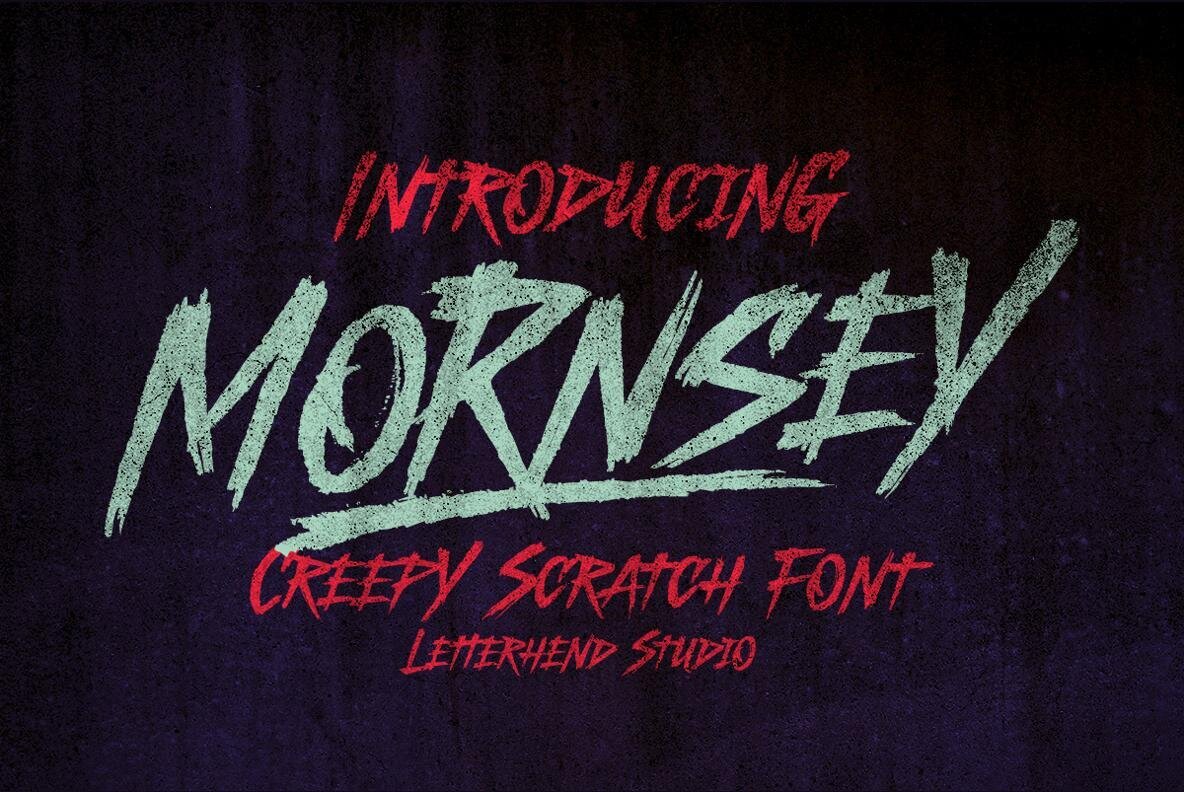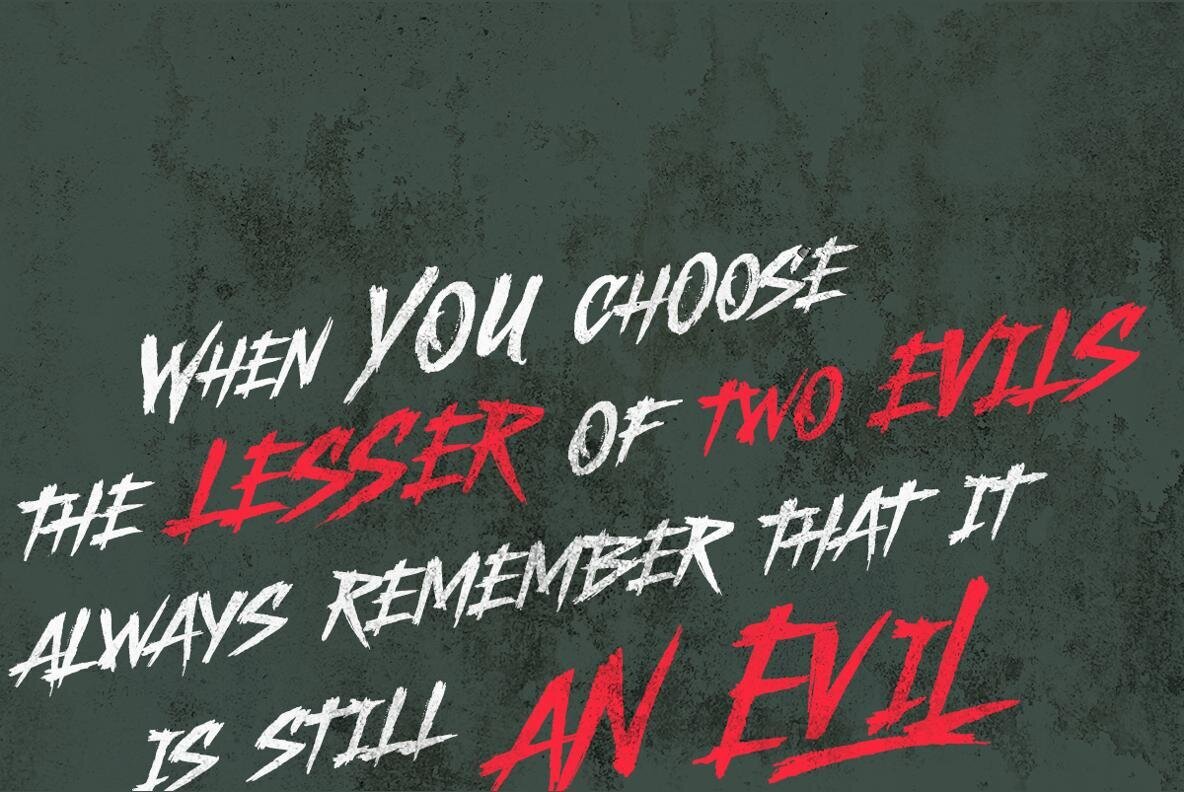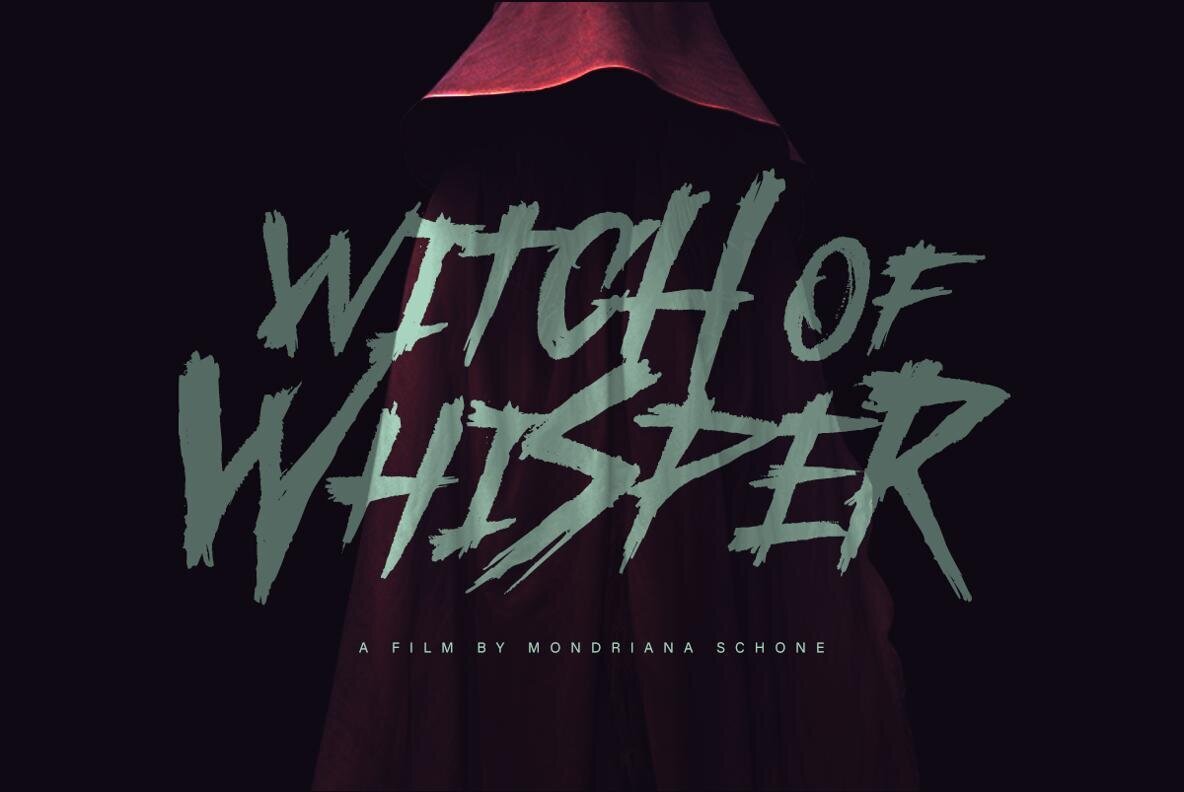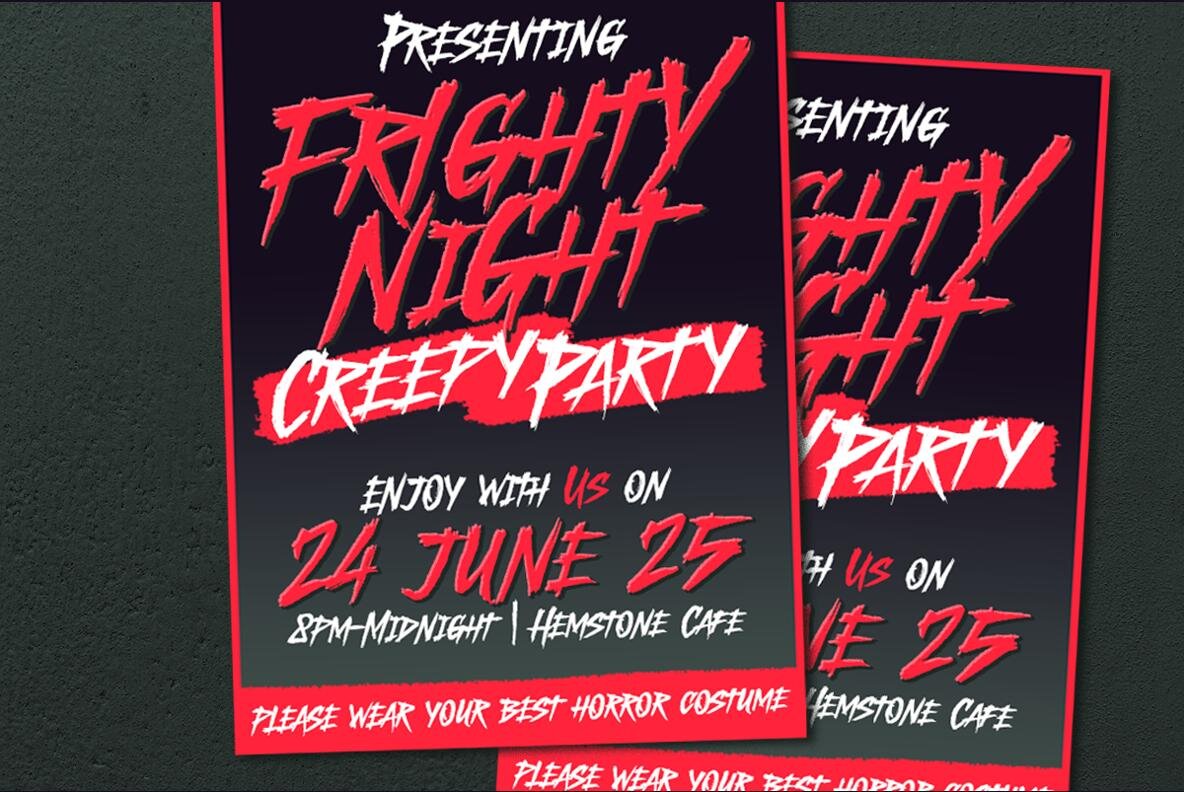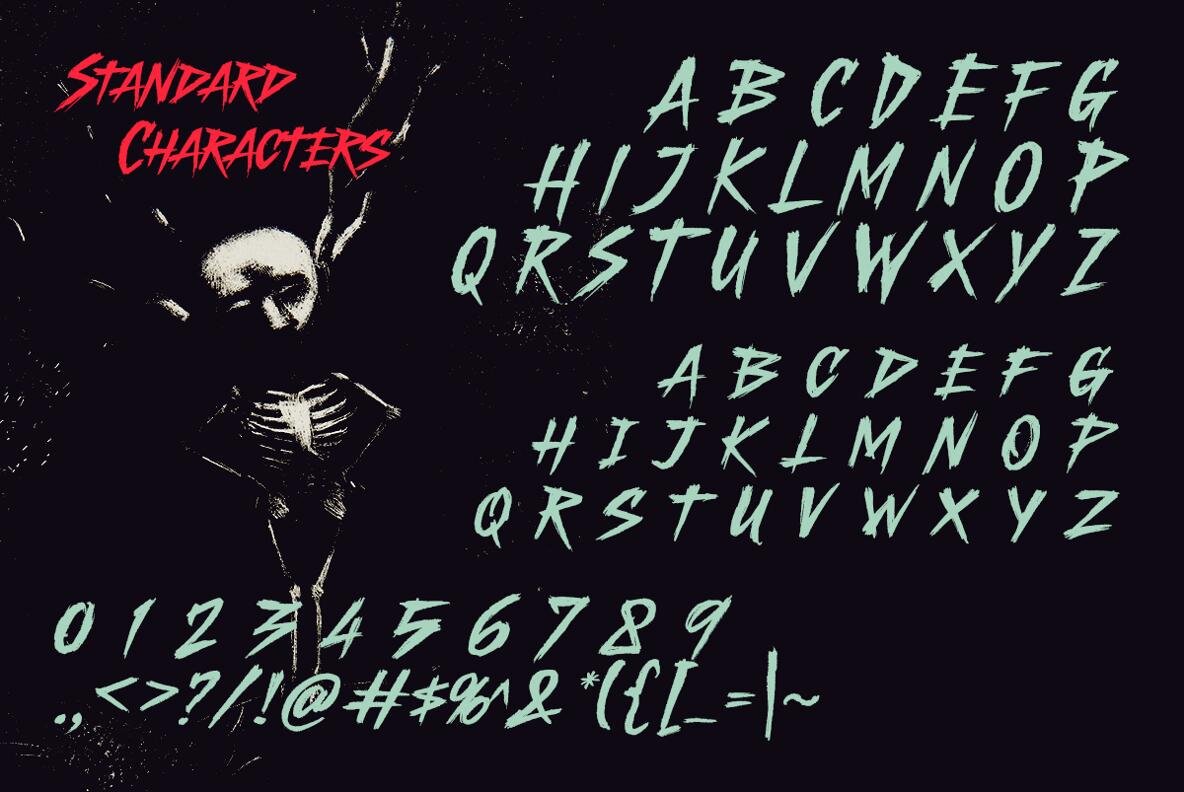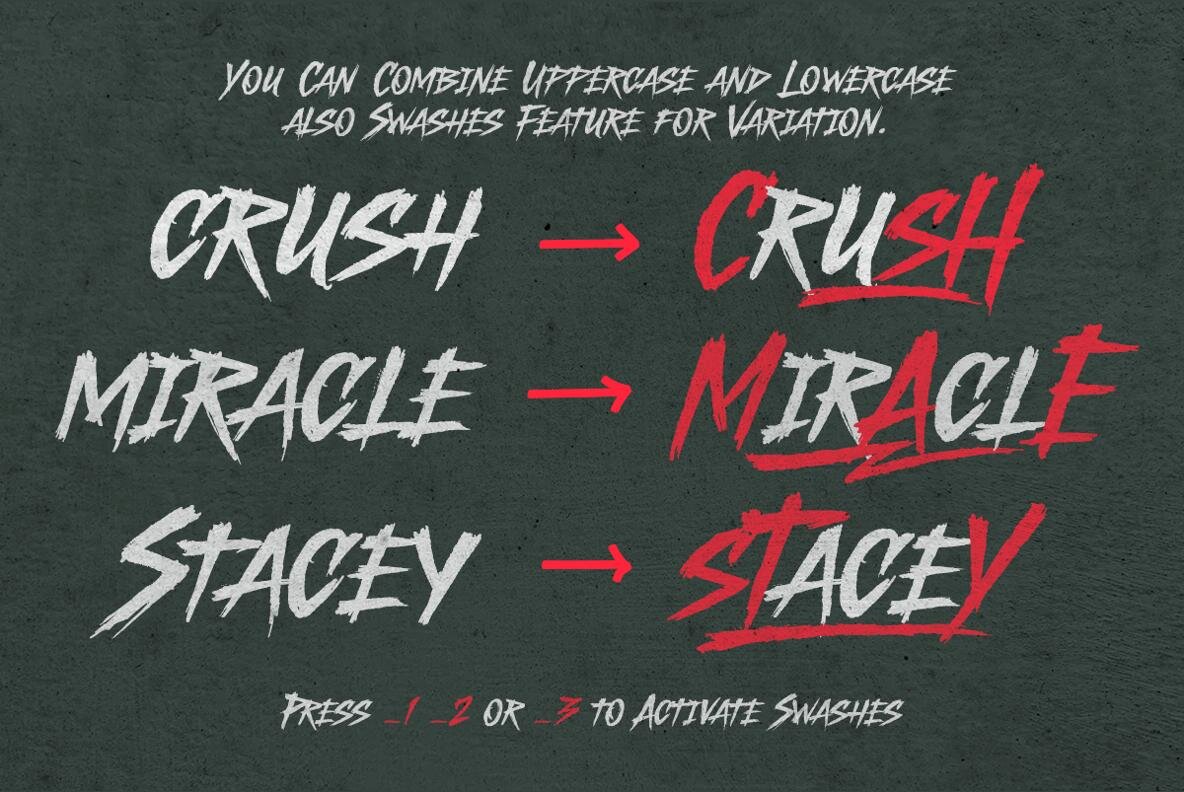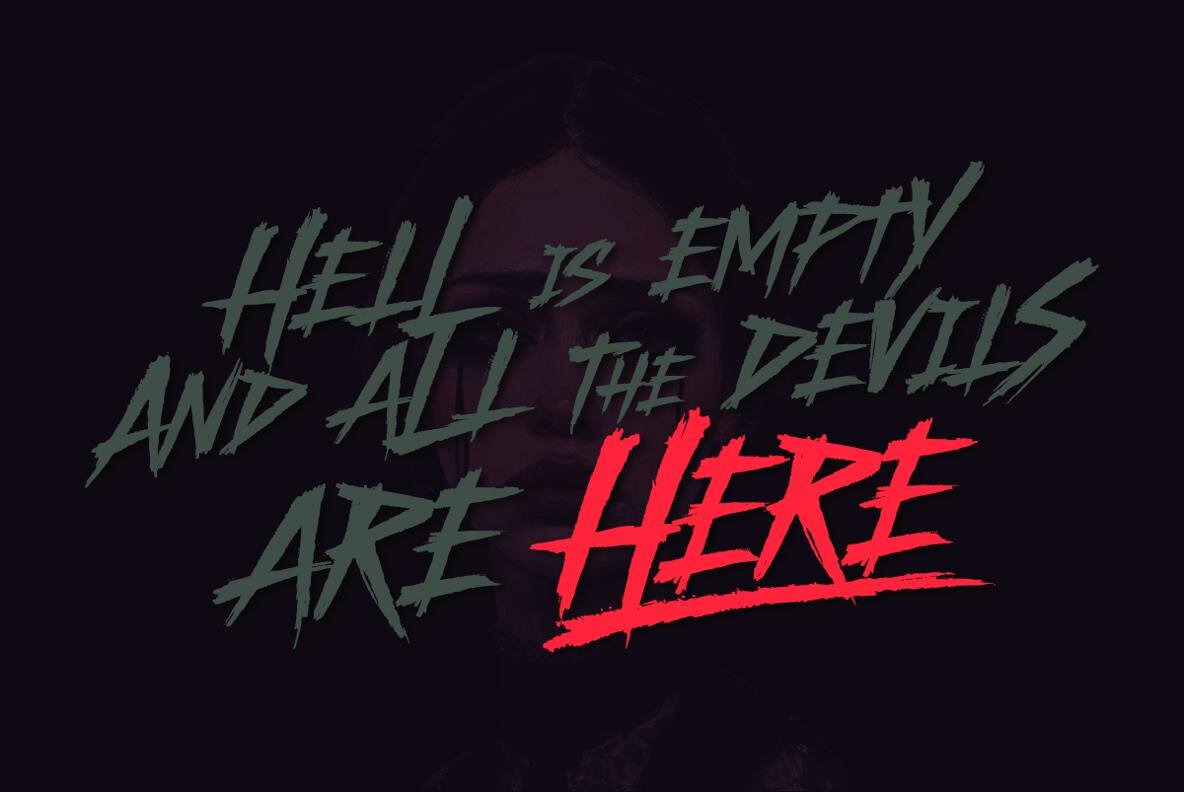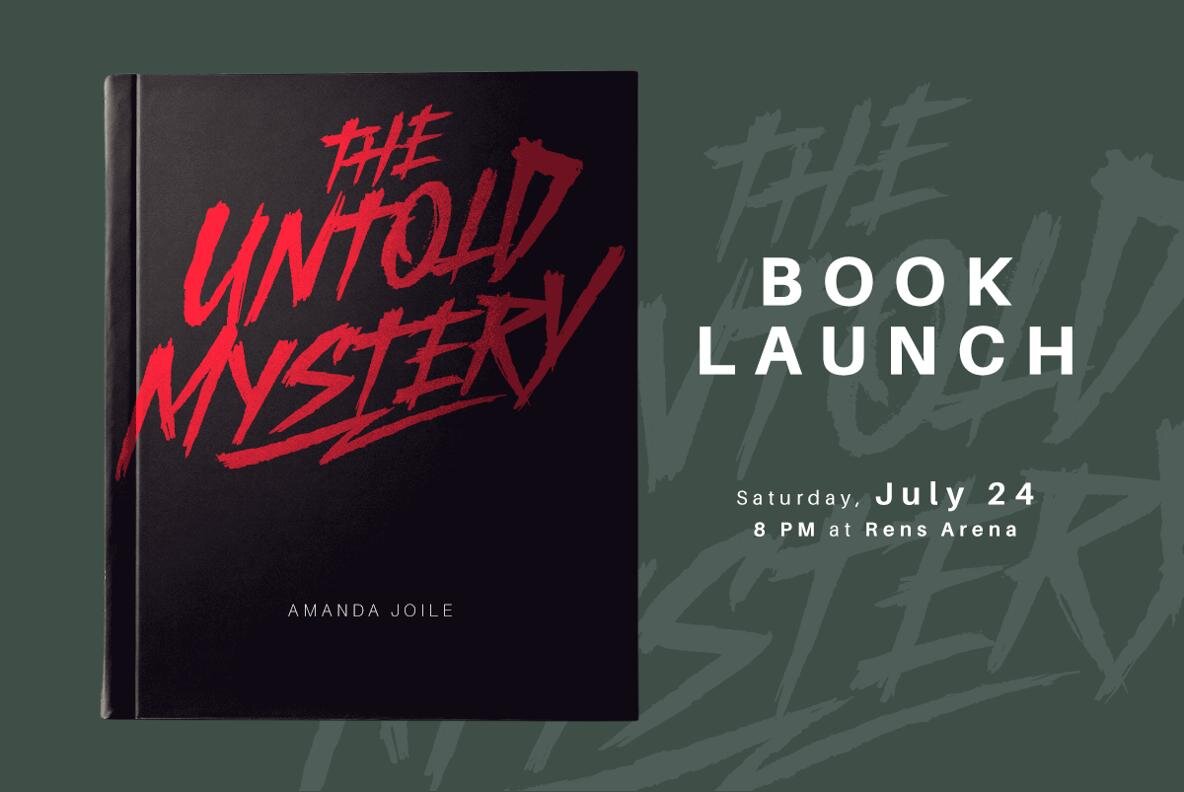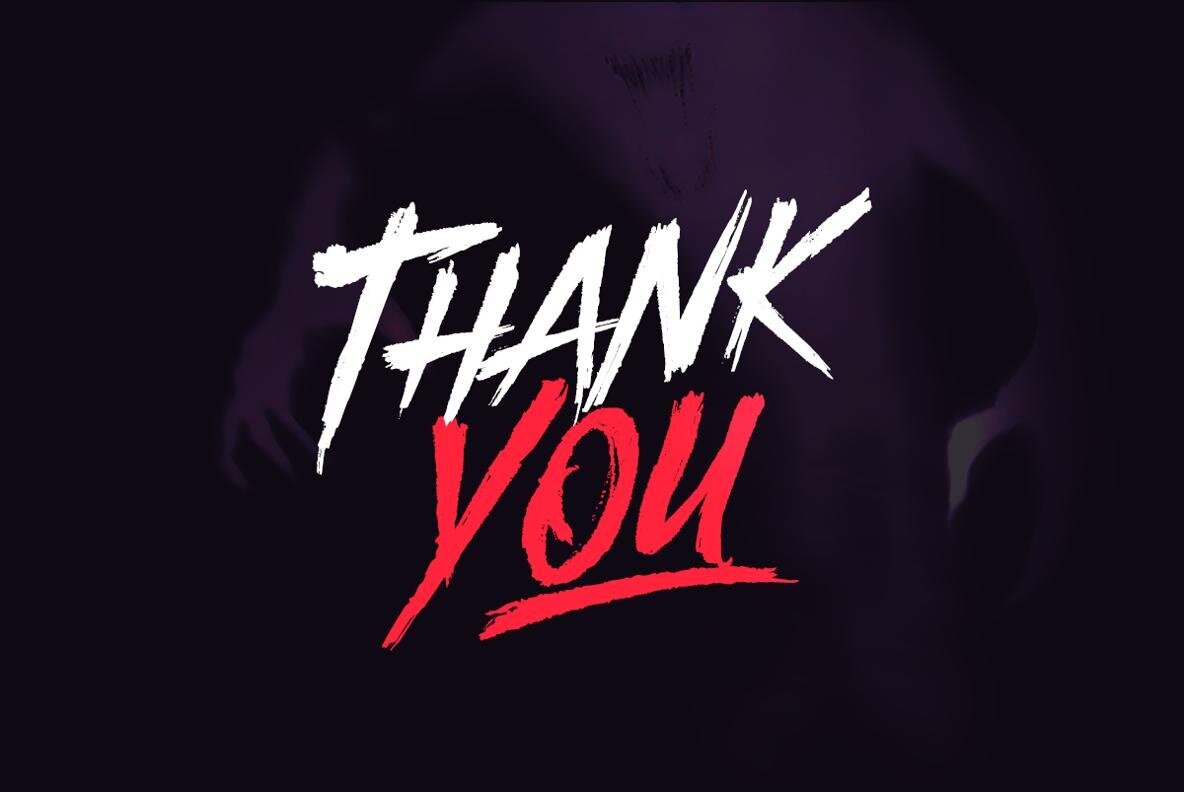
Mornsey Font
Mornsey Regular
Mornsey emerges as a bold, eerie scratch font that sets the perfect tone for horror, thriller, and dark-themed designs. Its jagged strokes and hand-drawn scratch texture evoke a sense of chaos and unease. Ideal for movie posters, haunted house branding, and spine-chilling book covers, this font brings a raw, unsettling edge to any project. Mornsey's sharp, distressed lettering doesn't merely convey words; it crafts an intense atmosphere filled with fear and anticipation. For optimal use, a program that supports OpenType features and Glyphs panels, such as Adobe apps or Corel Draw, is recommended. This enables full access to all Glyph variations.Mornsey: The Chilling Scratch Font